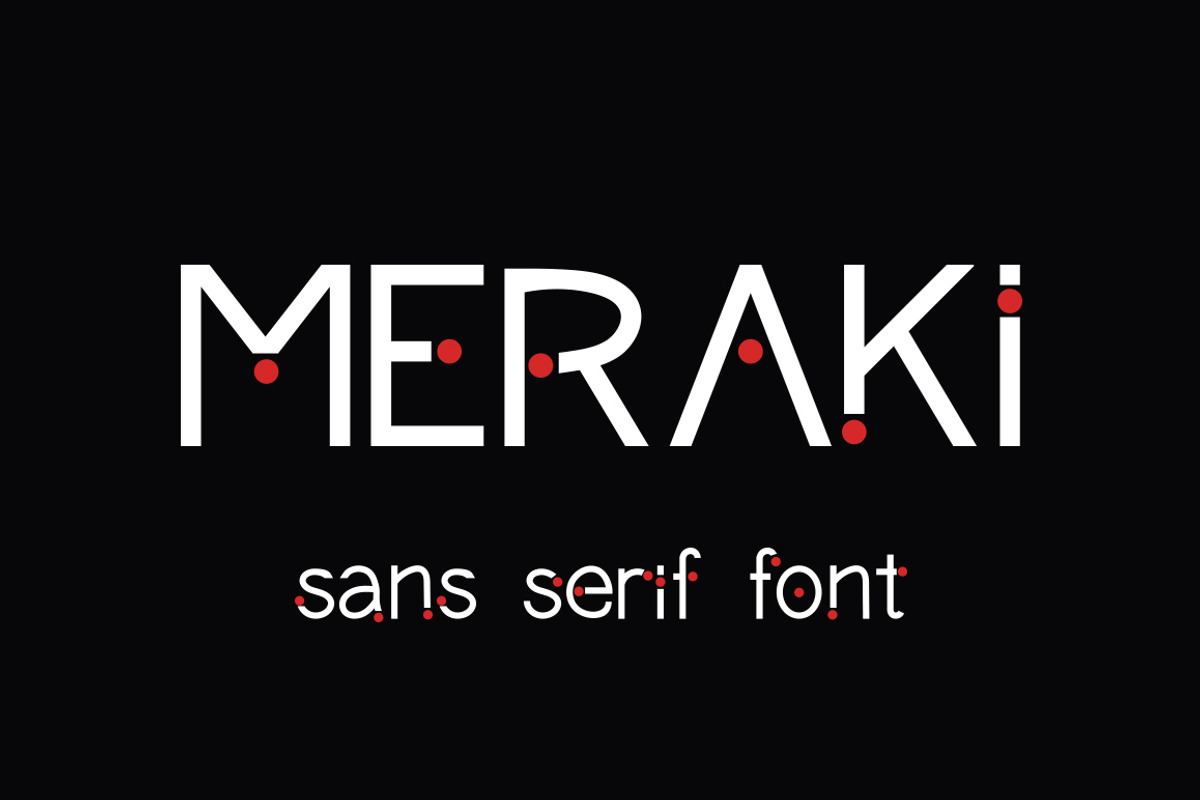
Meraki Font Free Download is a sleek and modern sans-serif typeface designed with clean, geometric lines and a refined structure. Perfect for branding, editorial design, logos, and web projects, Meraki offers a sophisticated, contemporary style that works well across various media and applications.
Its versatile design makes it suitable for both bold headings and smaller body text, providing clarity and elegance in any context. Whether you're working on a minimalist project, a corporate identity, or a creative brand, Meraki adds a stylish, professional touch to your typography.